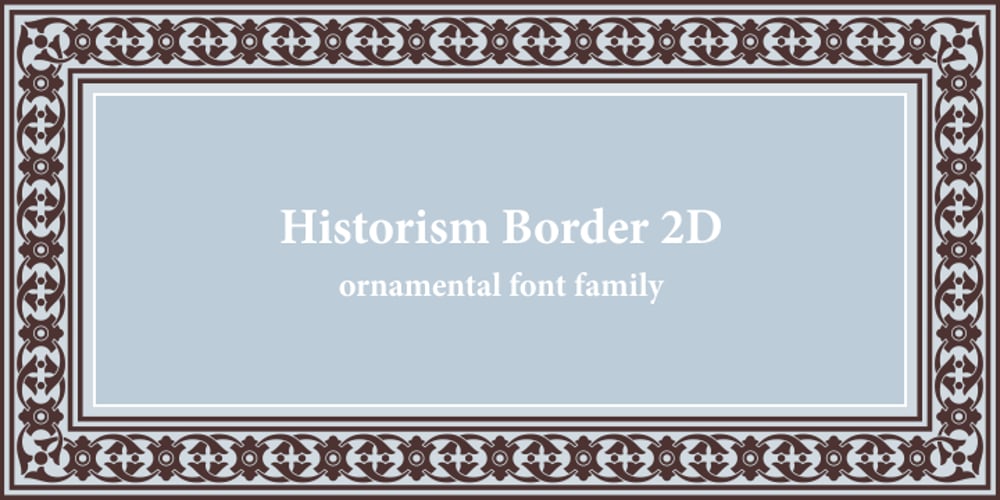
Historism Border 2D Font Family was designed by Lukyan Turetskyy and published by 2D Typo. Historism Border 2D contains 4 styles and family package options. Historism Border 2D is a collection of ornaments organized into four font files. The ornaments can be divided into two groups: Friezes (borders) and Rapports (patterns). All the ornaments attribute to the period of Historicism, which prevailed in art in the middle of the 19th century. The ornaments are based on elements of architectural decorations of Lviv buildings in Ukraine. The author personally collected the material and embodied it in the font. This makes the font exclusive and unique among other digital collections of ornaments. These patterns are perfectly suited to be used in the design of invitations, diplomas, certificates or other printed materials in classic-style design.